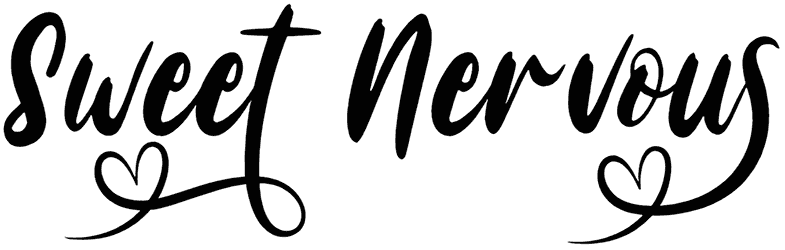
Sweet Nervous Font
Choosing a delightful and manual outward can give a nice promotion to your creative design. Sweet Nervous is a handsome romantic font with a smooth and casual style. This lovely, precious item is an apt one for many vari…
Choosing a delightful and manual outward can give a nice promotion to your creative design. Sweet Nervous is a handsome romantic font with a smooth and casual style. This lovely, precious item is an apt one for many various subjects and designs, namely invitation cards, planners, mugs, magazines, and the like.